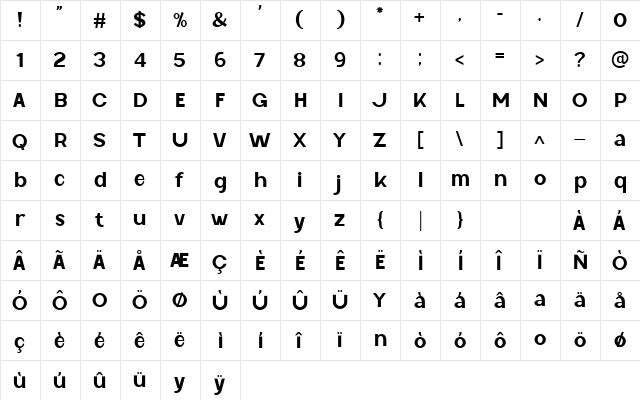
Lynsic Cisnyl Regular
Design Context for Lynsic Cisnyl Typeface
Lynsic Cisnyl is a composed and adaptable typeface that performs quietly and consistently across a wide range of design contexts.
Pro Tip: Use Lynsic Cisnyl in both headline and body roles to test its range before committing to a single application.